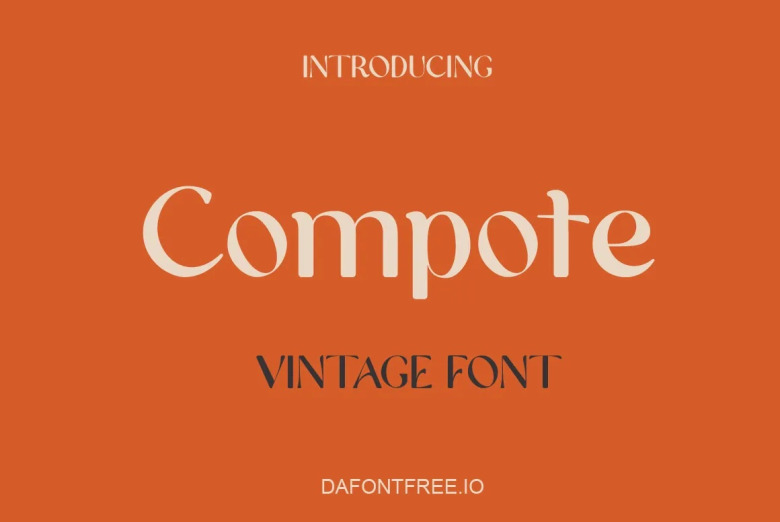
Compote Font
Compote is a fashionable sans serif font with both retro and sophisticated character. “The resulting sans serif font is a nod to tradition while the smooth curves echo groovier times of the 70s.” Bouillotte-revisited: Compote is the perfect pairing with vintage logos of giving it a little dunce-cap wag.
It includes numbers, punctuation, and multilingual letters too along with the lower case and upper cases. Pretty soon we’ll have ligature and italic font support anything else your mind can dream of!
Compote Sans Serif Font